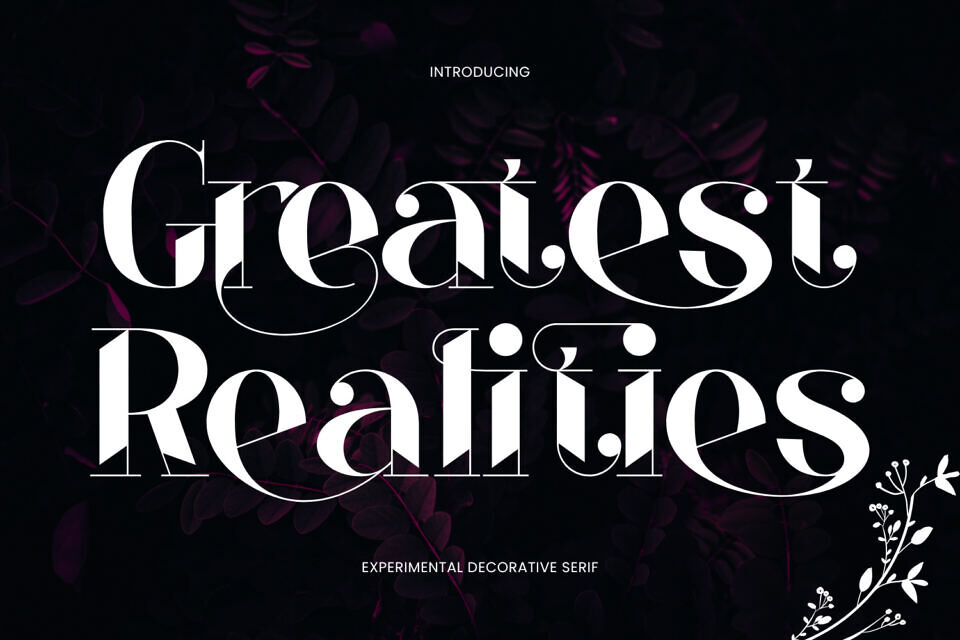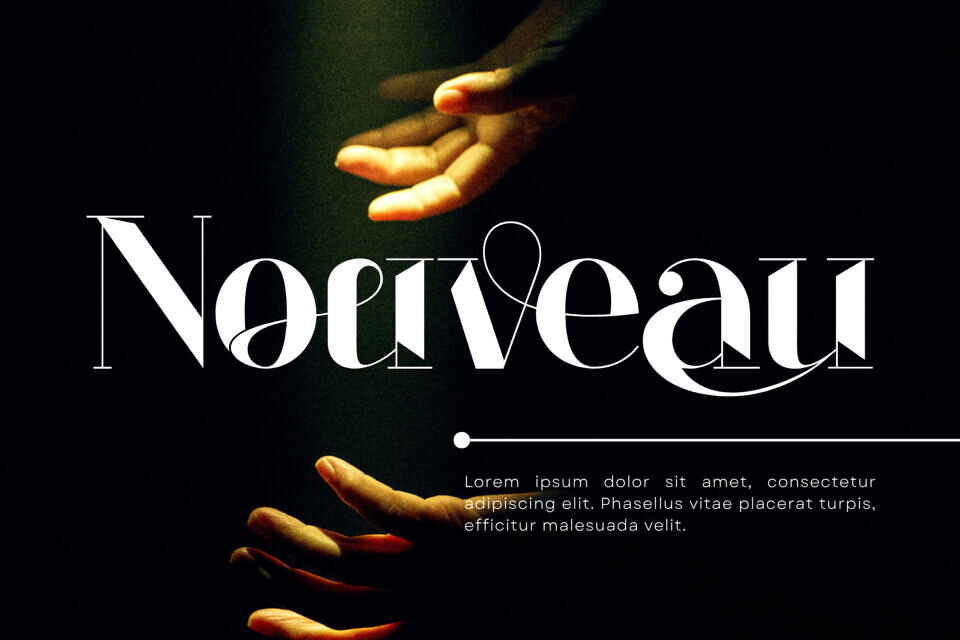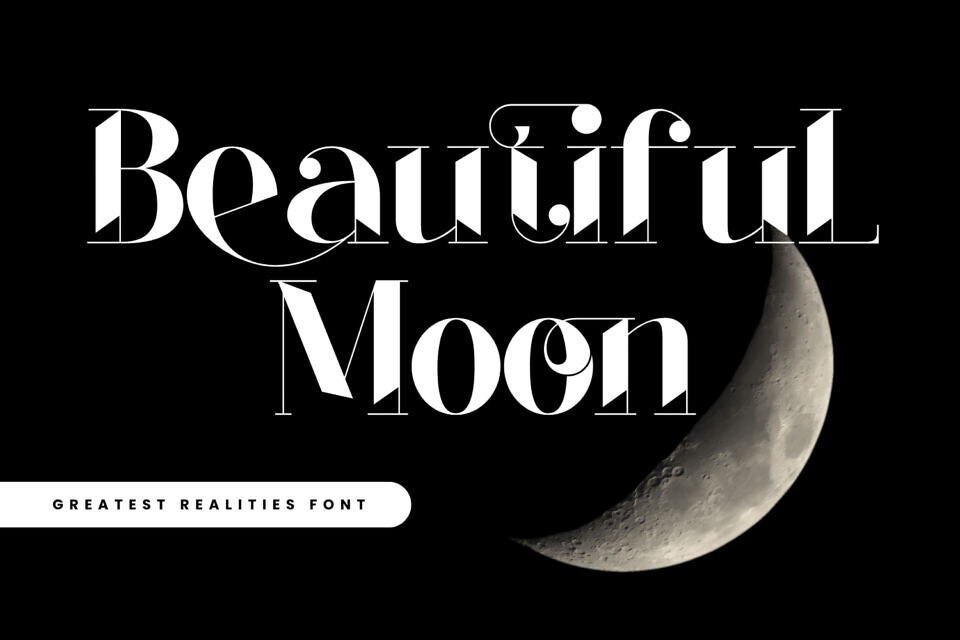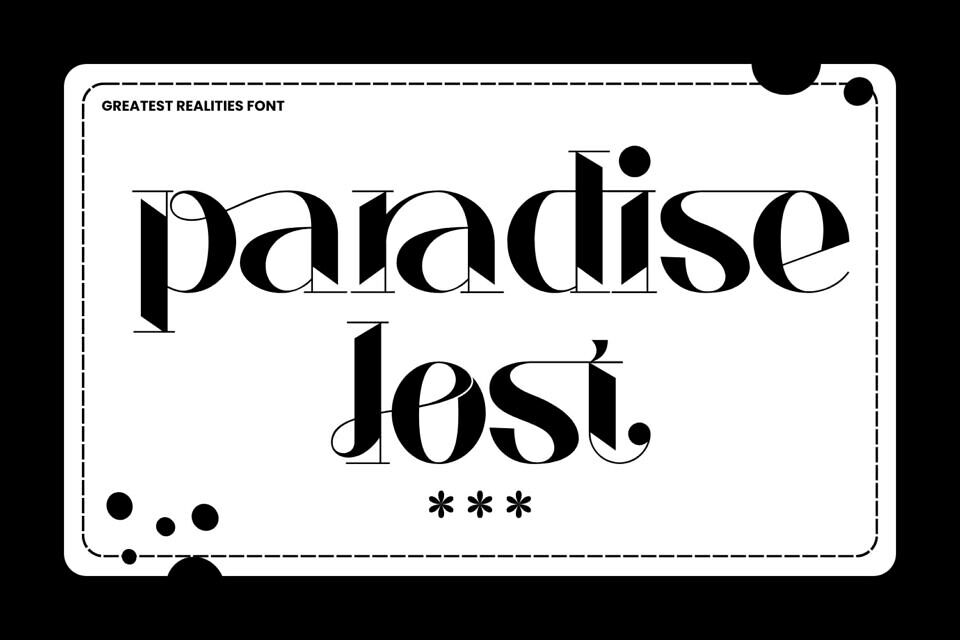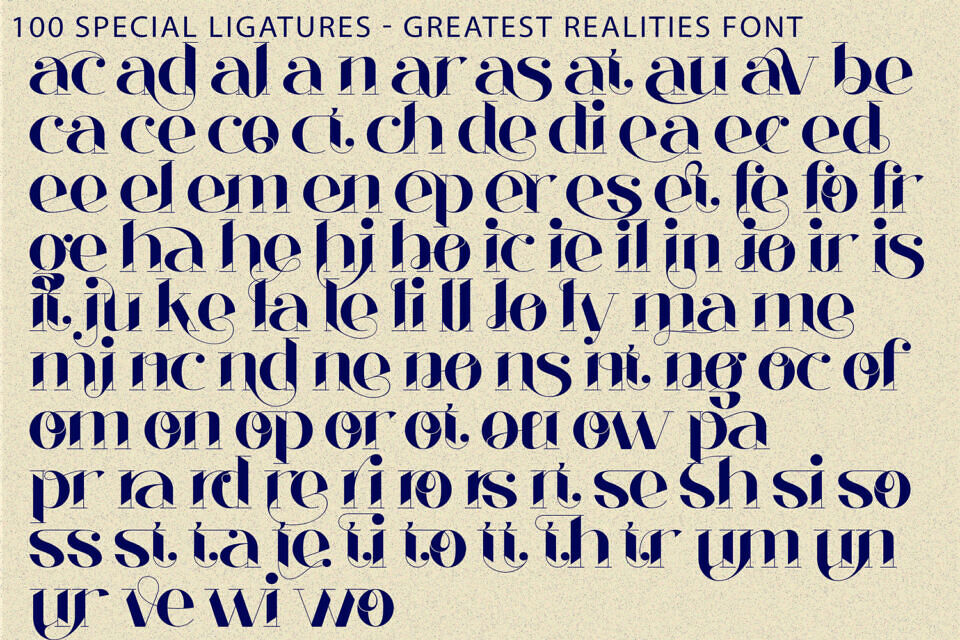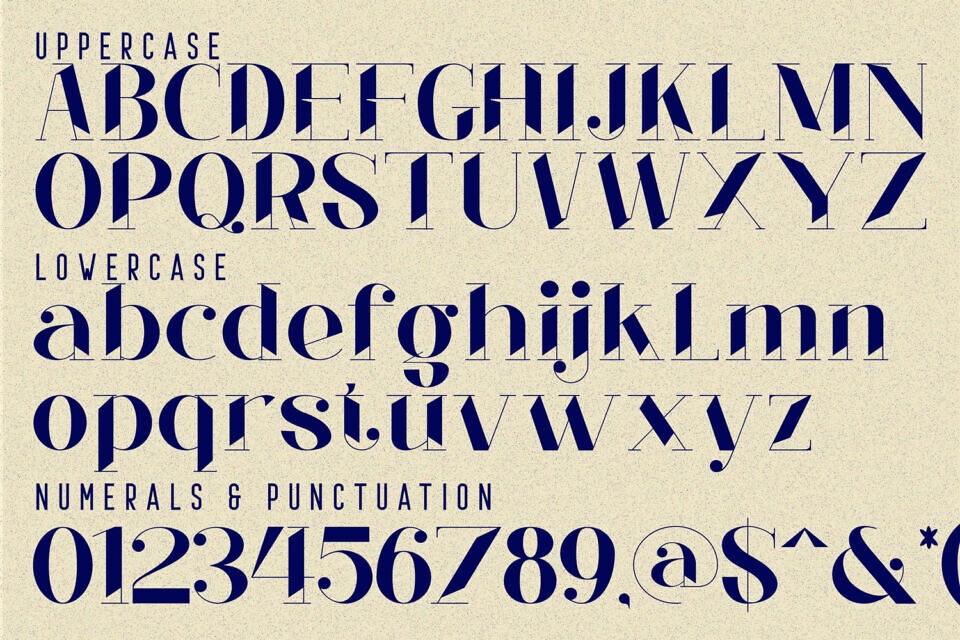
Greatest Realities Font
Greatest Realities is an elegant modern serif display font crafted to bring sophistication, beauty, and timeless luxury to your designs. Featuring dramatic high-contrast strokes, delicate hairline details, and graceful ball terminals, this typeface creates a refined visual presence that feels both contemporary and classic.
Its flowing curves and decorative letterforms add a touch of romance and artistic expression, while the carefully balanced proportions ensure exceptional readability and visual harmony. Inspired by luxury fashion editorials and premium branding, Greatest Realities delivers a distinctive personality that effortlessly stands out in high-end design projects.